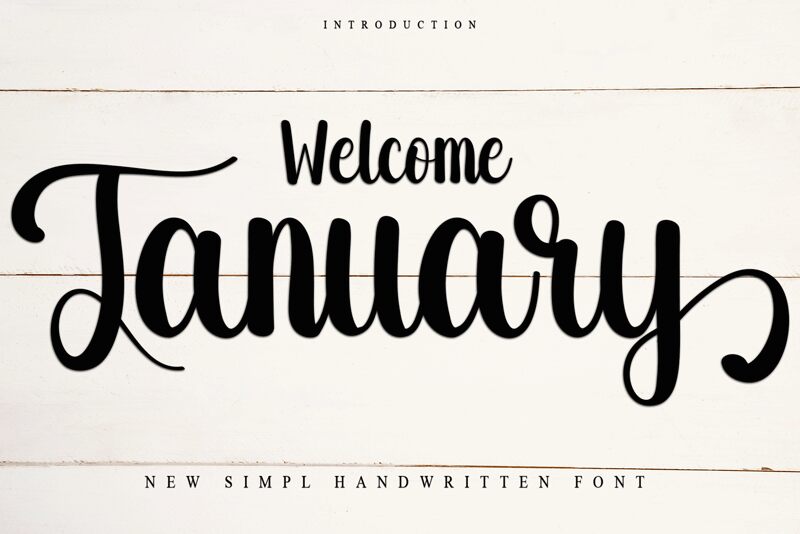
Welcome January font
Welcome January
This font retains a classy calligraphic influence while feeling contemporary and fresh. Its versatility can accommodate a wide range of creative ideas, from letterheads and titles to stationery.